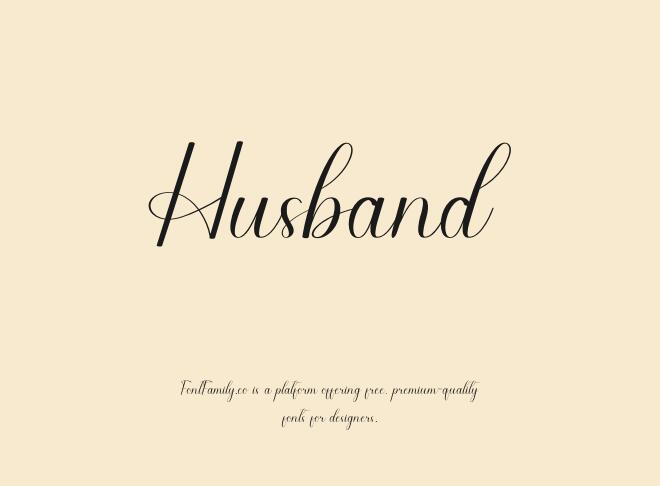
Husband Font
Husband Font is a beautifully crafted, modern handwritten typeface that exudes elegance and sophistication. Perfectly suited for a wide array of design projects, including wedding invitations, branding, logos, and social media graphics, it adds a touch of personal charm that resonates with the viewer. Its fluid curves and sleek lines offer a seamless blend of simplicity and complexity, making it stand out among other fonts. Compared to other handwritten fonts, Husband Font offers a unique balance of readability and artistic flair. Its modern aesthetic, combined with a hint of classic handwriting, makes it a versatile choice for designers. Despite its refined look, it maintains a friendly appeal, making it a great choice for projects that require a personal touch. Download Husband Font today and elevate your designs to new heights.